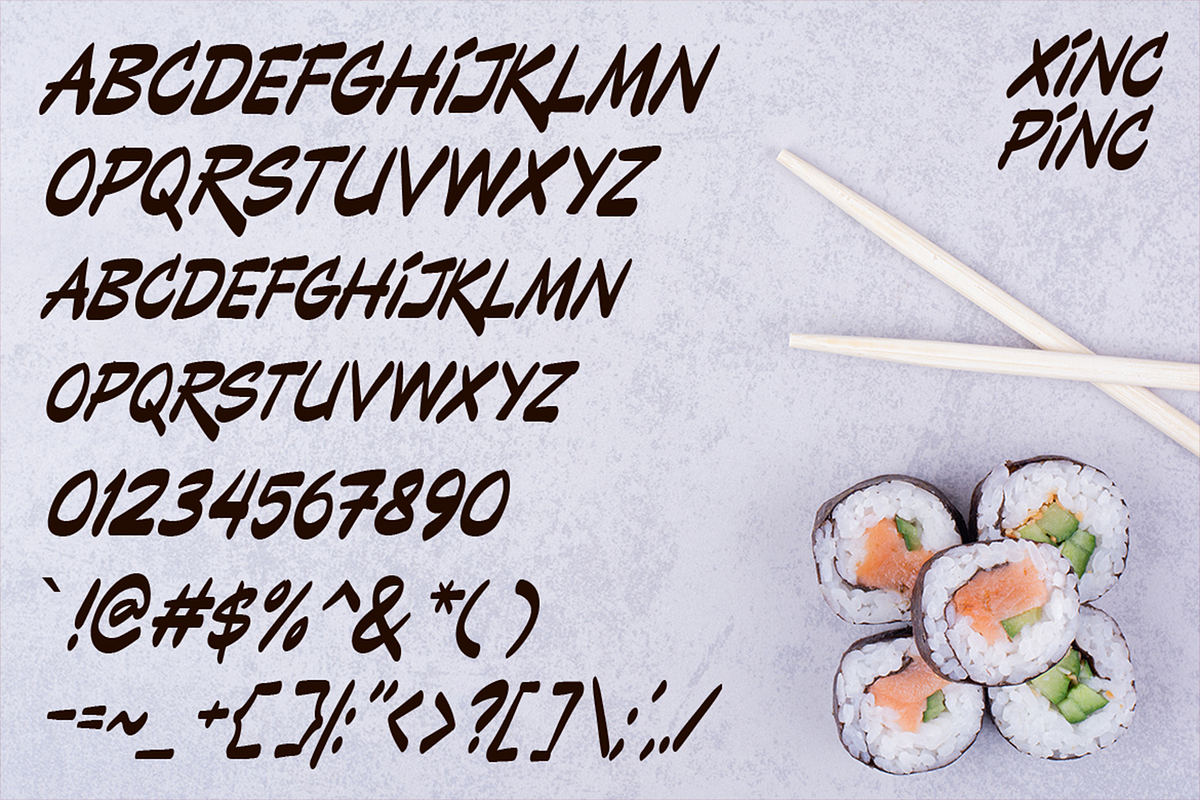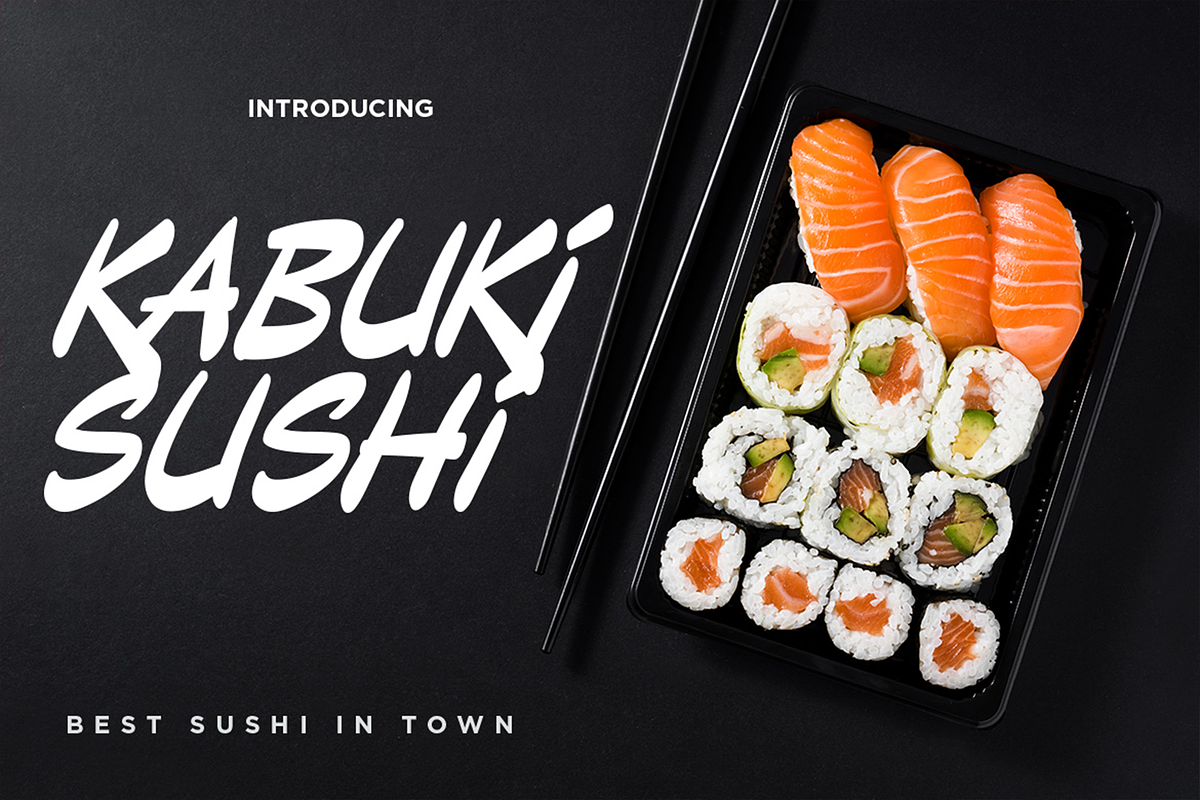
Xincpinc – Asian Cuisine Fonts
Inspired by the Asians cuisine and restaurant menu, implemented with brush strokes to maintain the traditional vibes.
Perfectly fit for your Japanese concept, Japanese food, Chinese New Year projects, Logo, Branding, Restaurant, China Town decoration, Chinese concept, anytime you need an instant vibe of it, Xincpinc is an easy way to go.
- All Caps font (no lowercase)